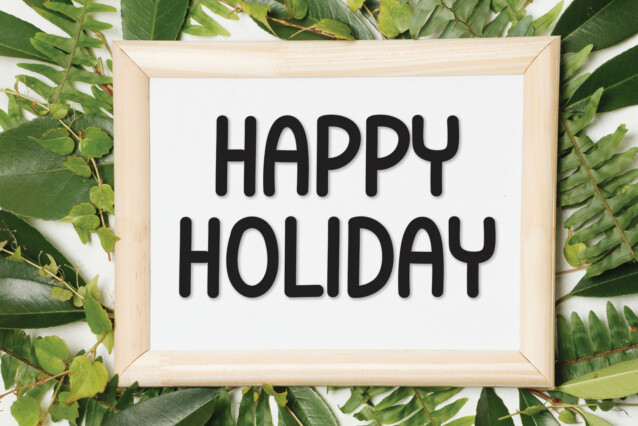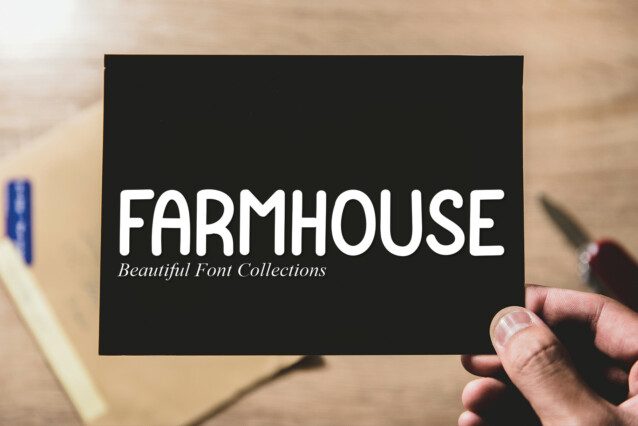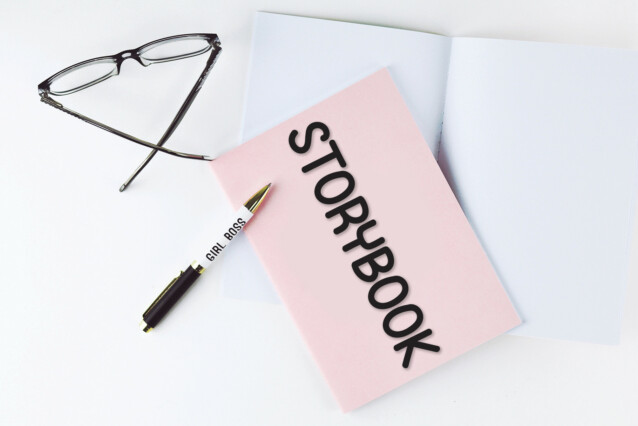
Teachers Students Display Font
Teachers Students Display Font is a cool and relaxed handwritten font. This versatile font has a wide spectrum of applications ranging from greeting cards to headlines and is guaranteed to add a neat and natural feel to your next project!